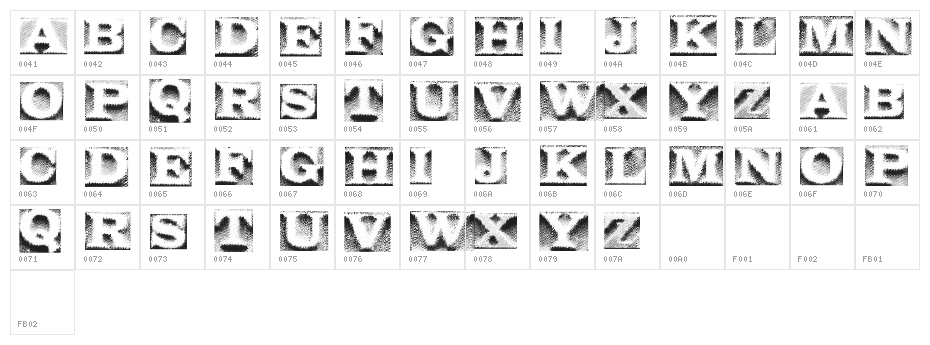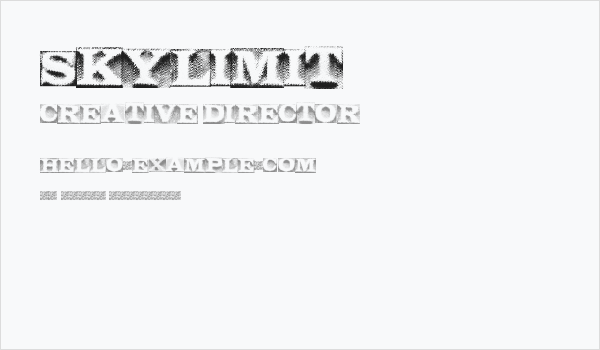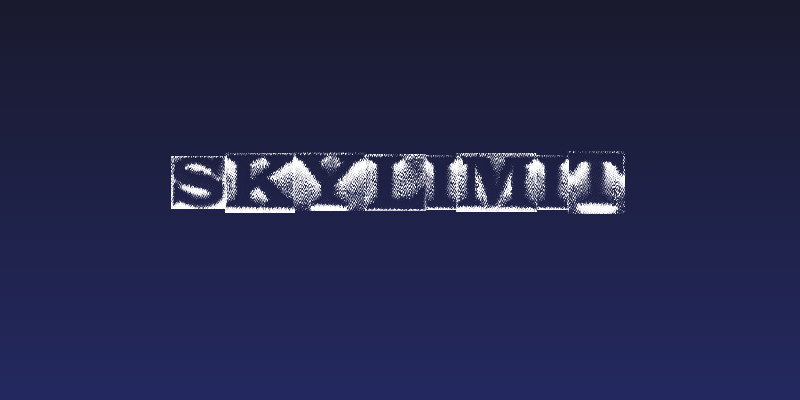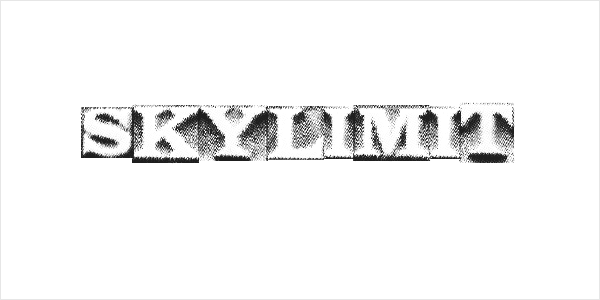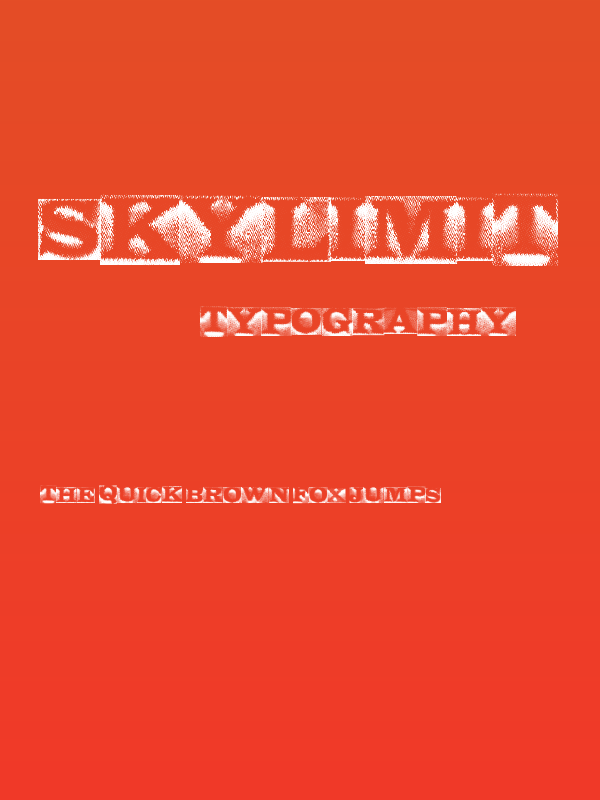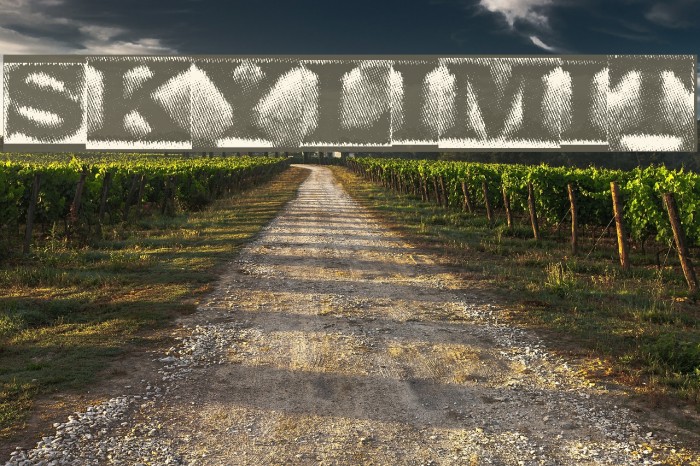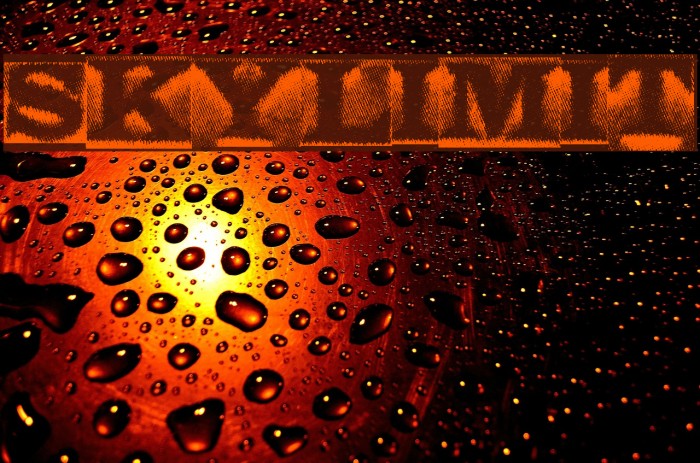
SkyLimit Font
SkyLimit Description
This font features a bold, three-dimensional style with a textured appearance, giving it a vintage and industrial feel. The uppercase letters are prominent and impactful, with a shadow effect that adds depth. The design is reminiscent of old printing techniques, where ink distribution was uneven, creating a unique and artistic look. The characters are well-defined, with sharp edges and a consistent width, making them highly legible. This font is ideal for projects that require a strong, eye-catching headline or title, and it can effectively convey a sense of nostalgia or retro charm.
| Overall Style | Vintage |
| Proposed Projects | Ideal for vintage posters, retro-themed branding, industrial design projects, and eye-catching headlines. |